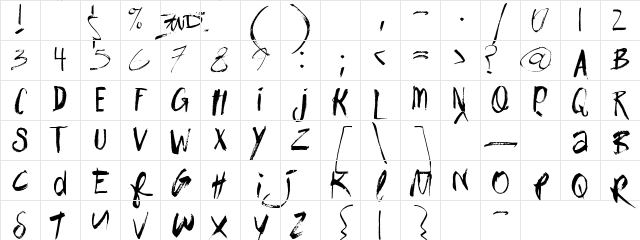
Hello Journal Regular Free Font
Hello Journal Regular
Design Context for Hello Journal
Hello Journal is a composed and adaptable typeface that performs quietly and consistently across a wide range of design contexts.